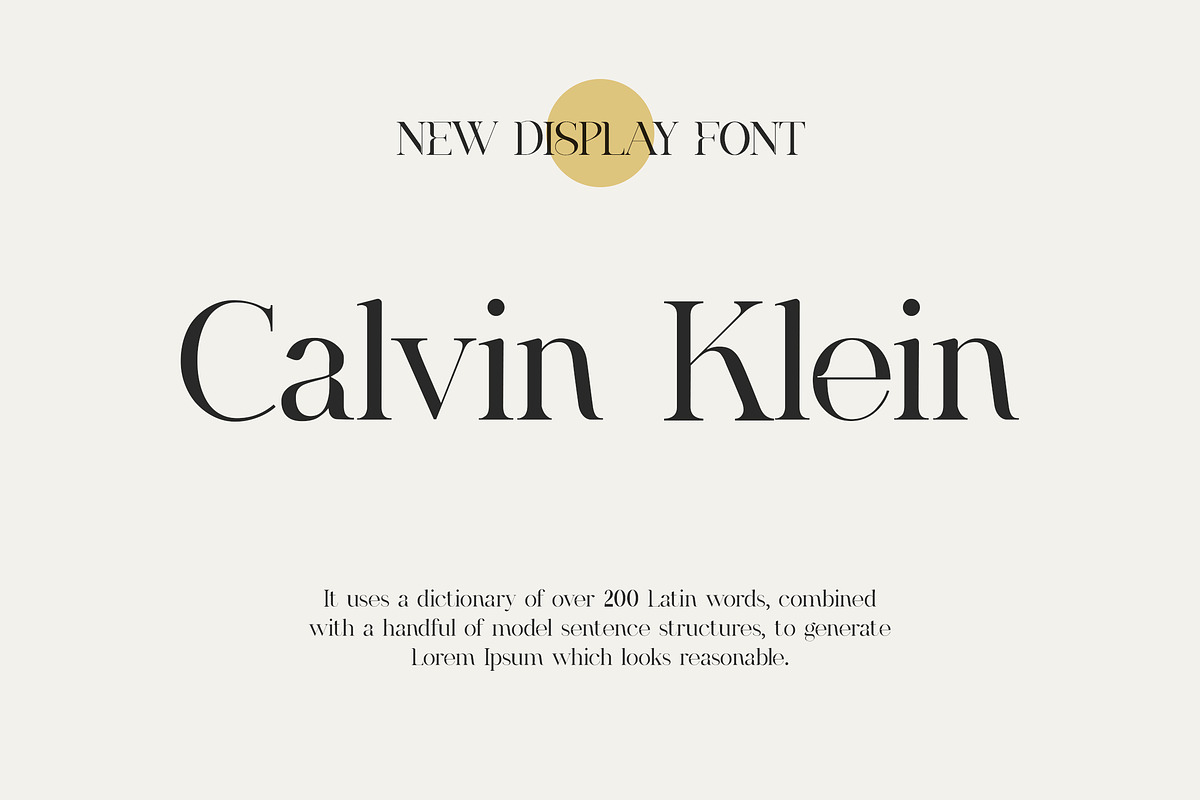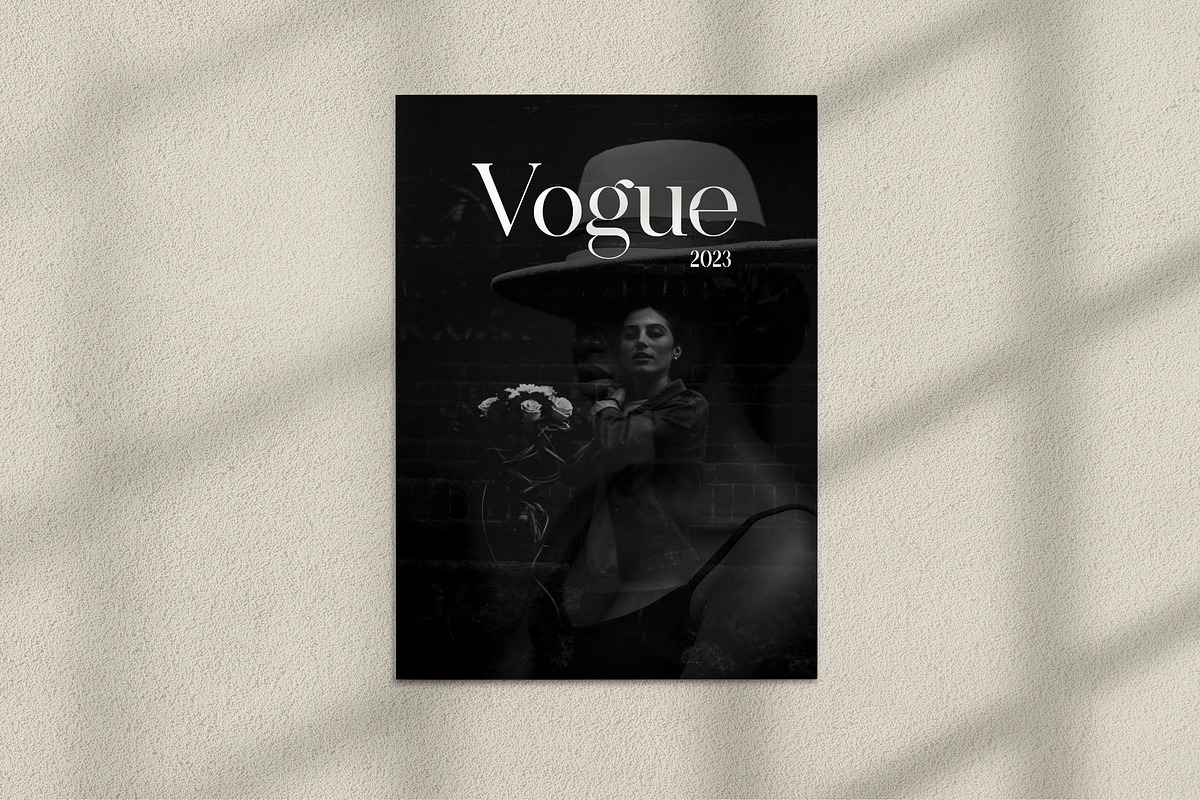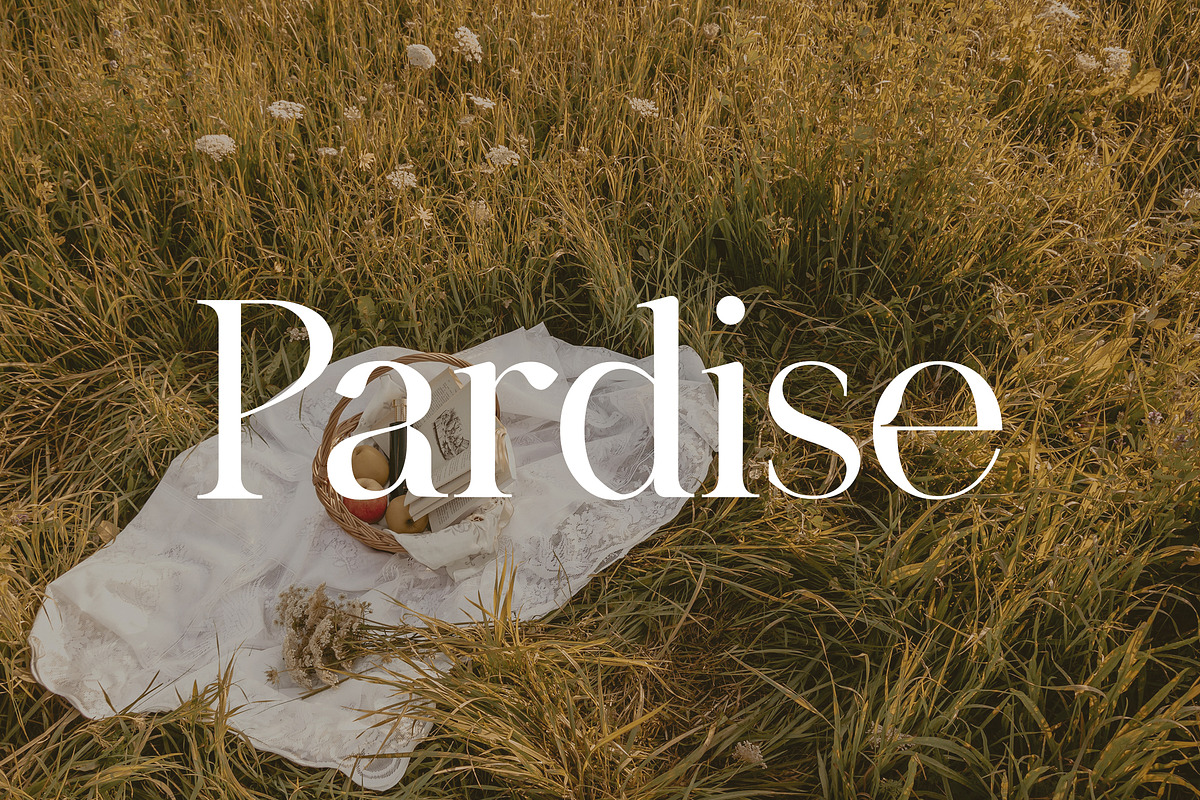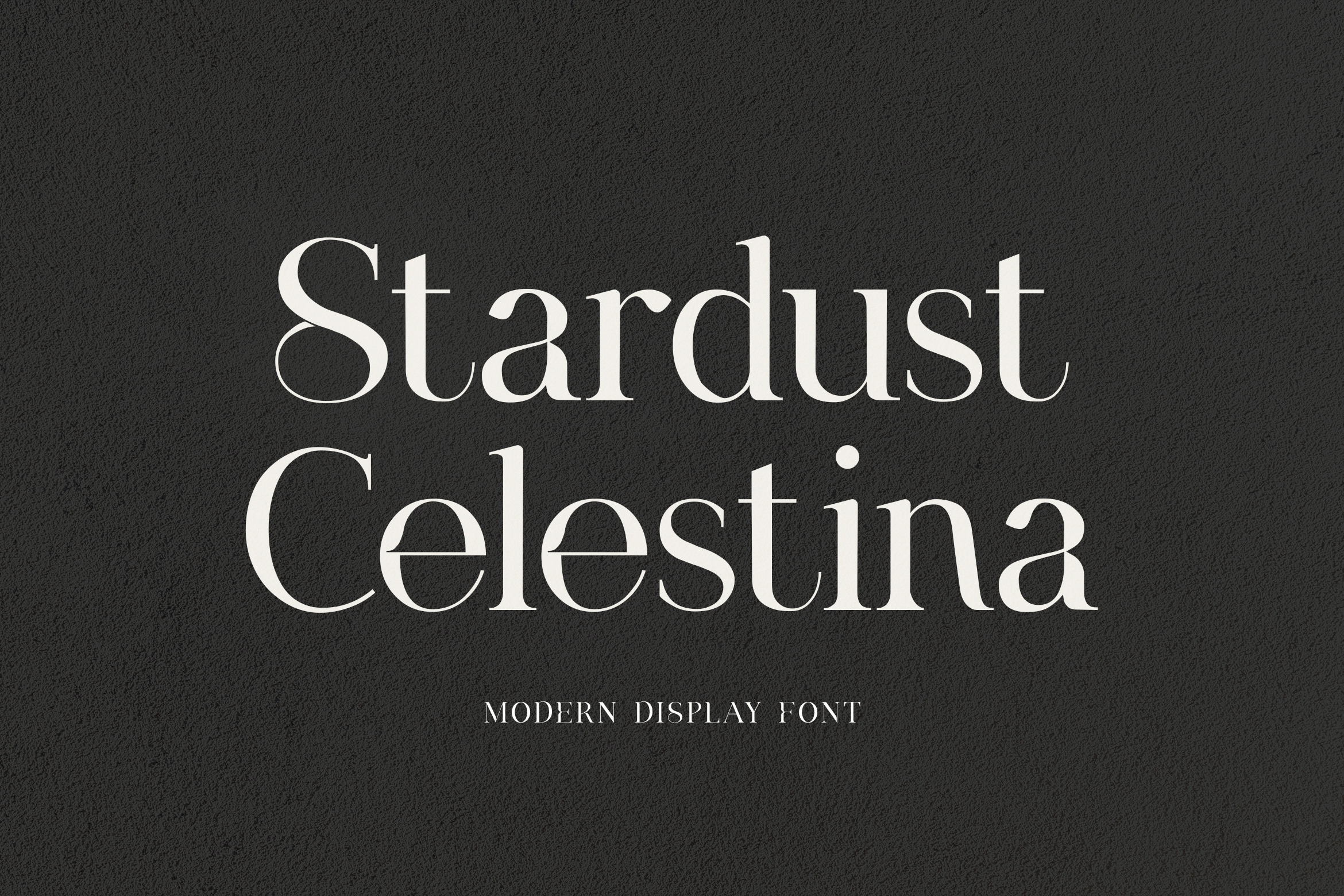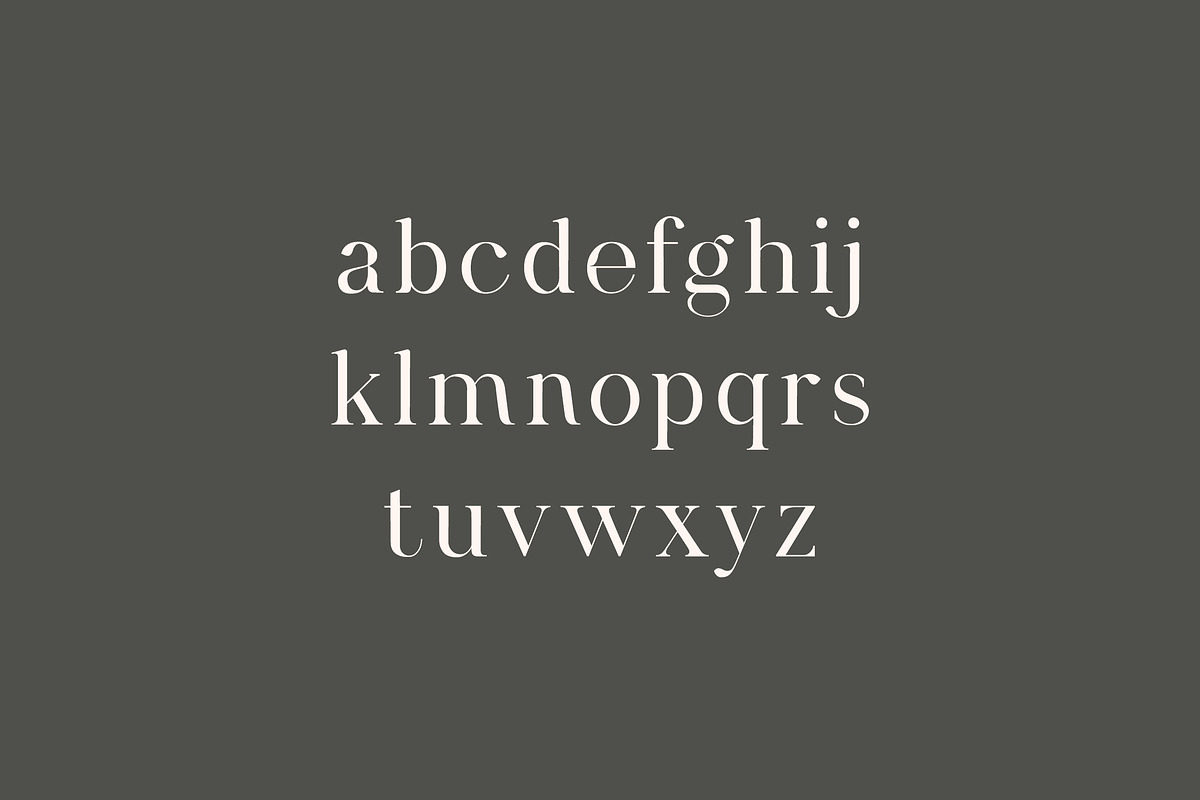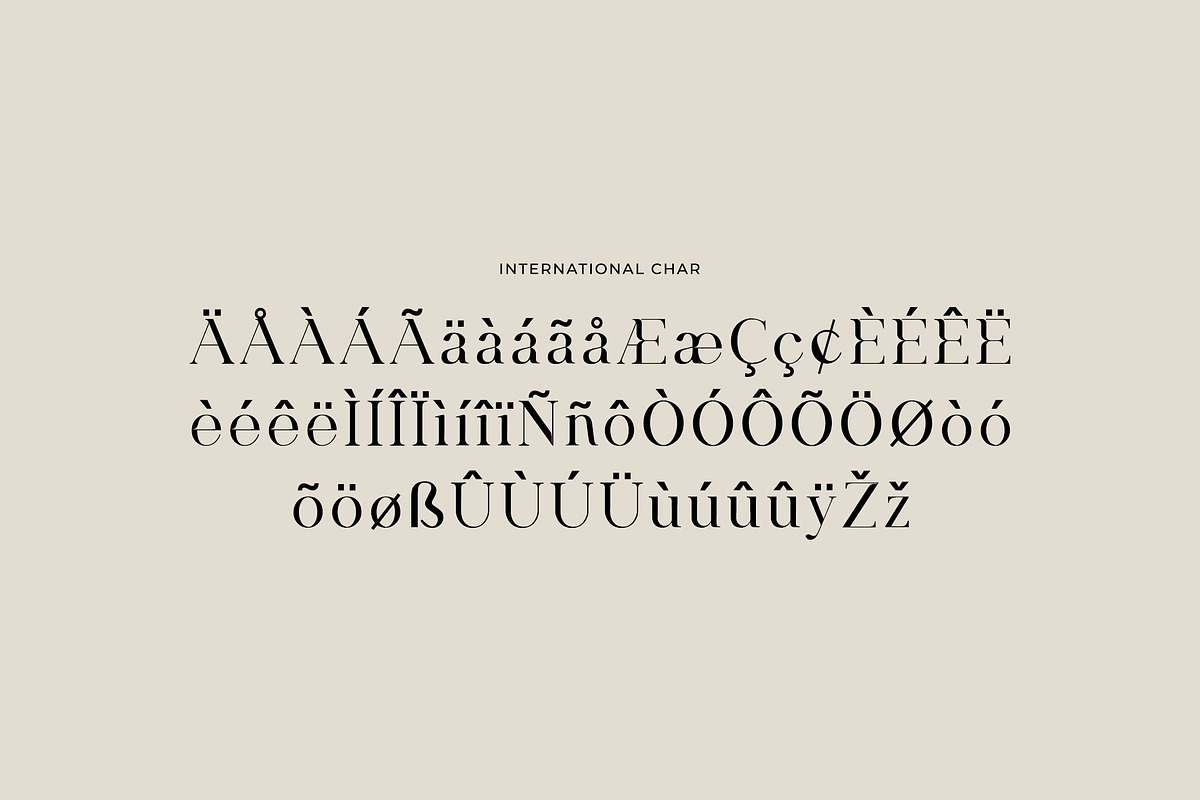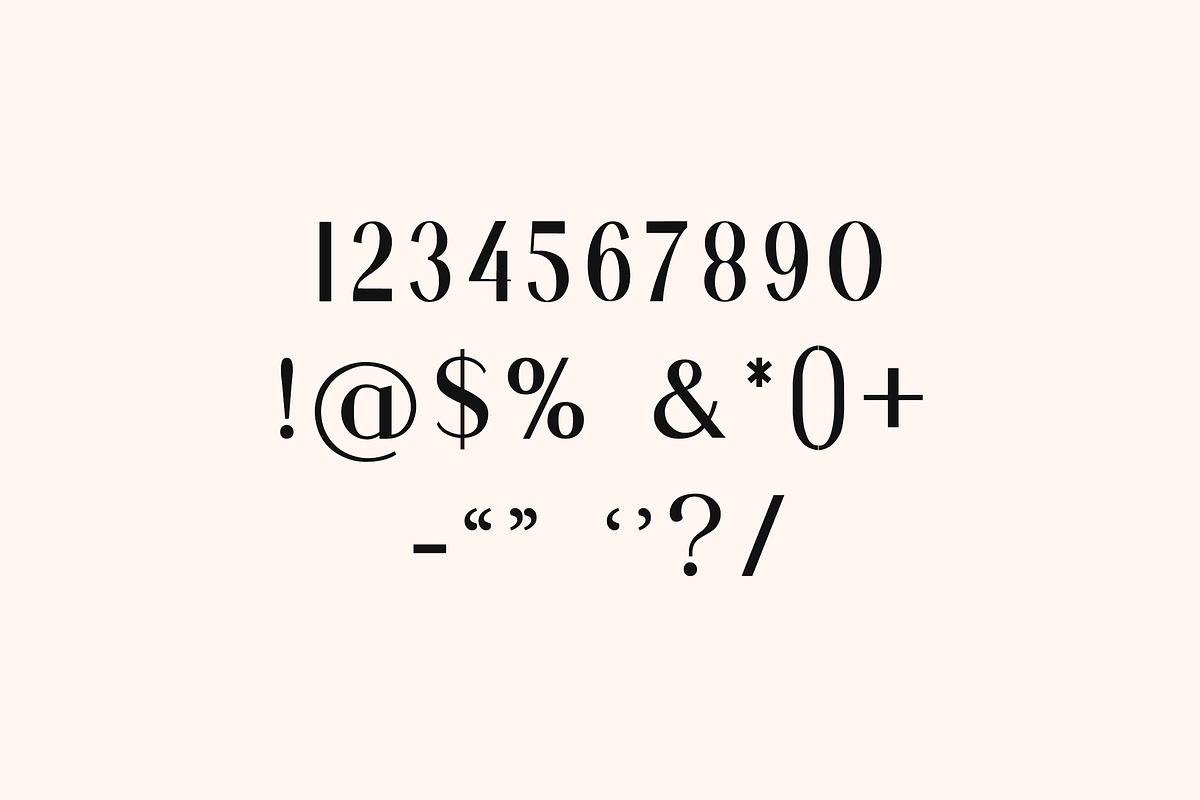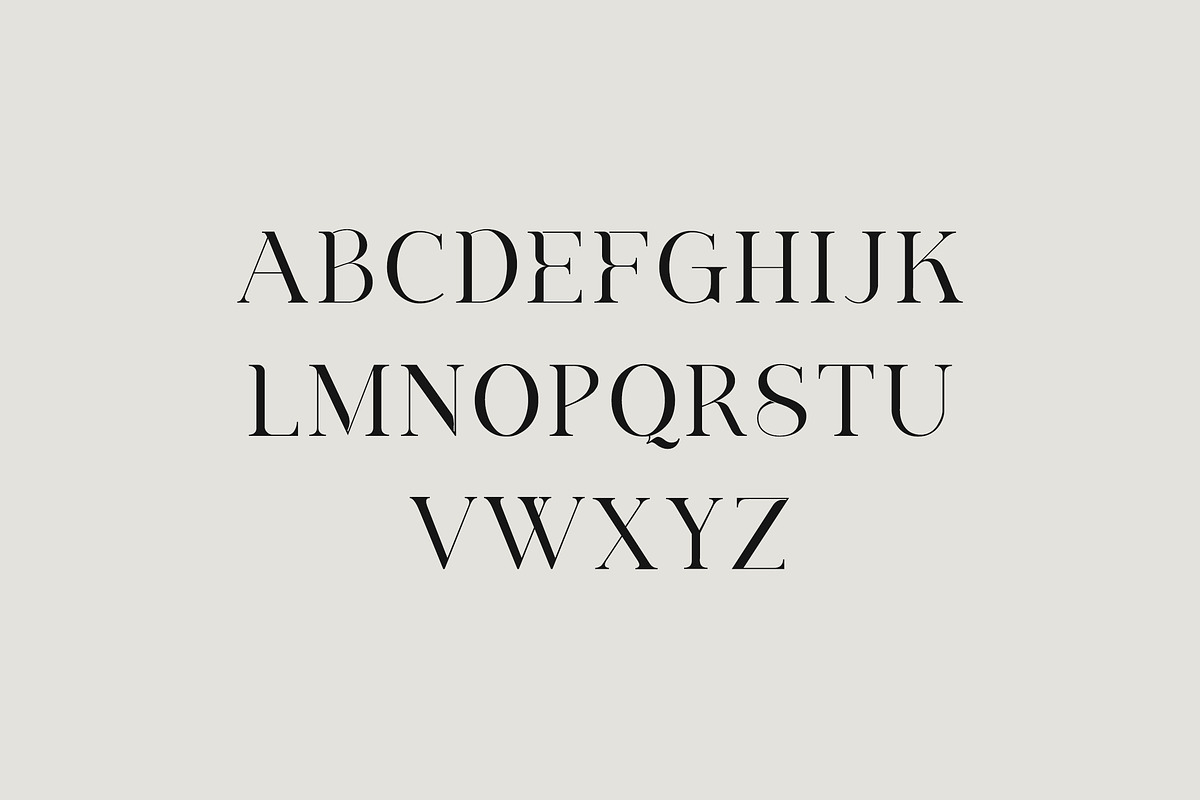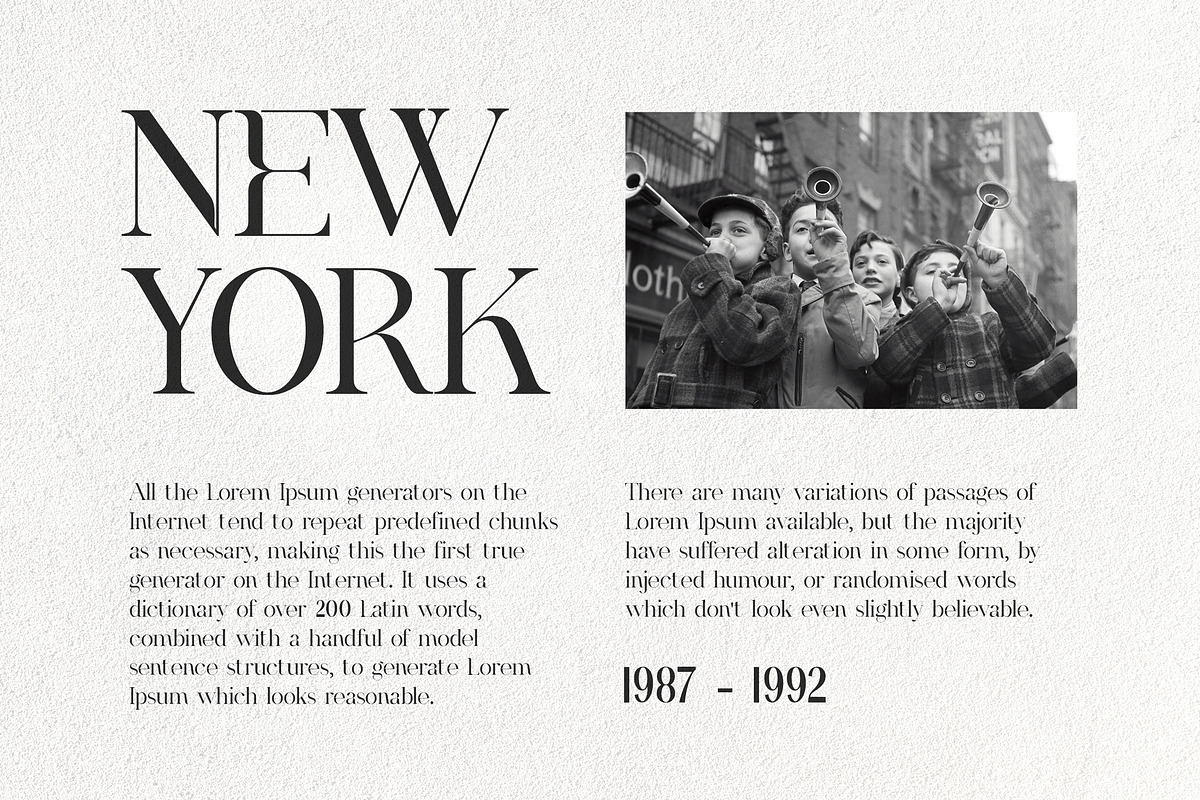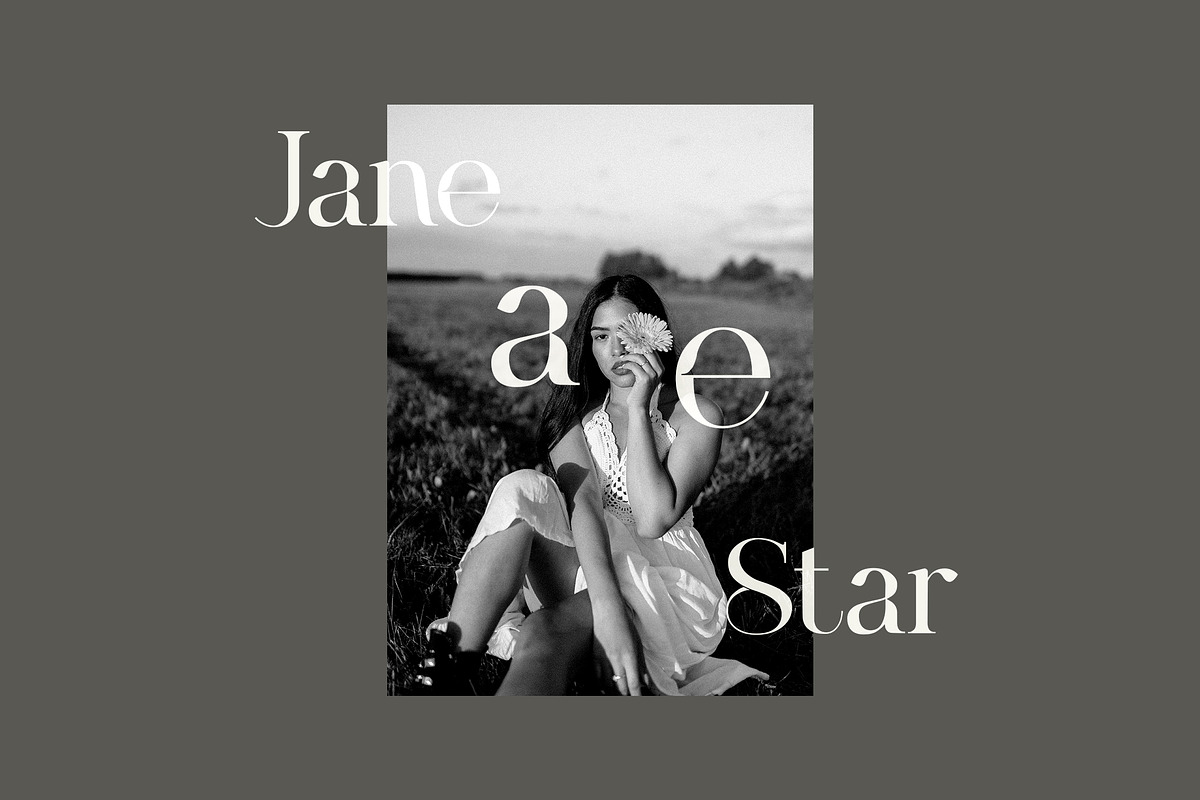
Stardust Celestina Modern Serif Font
Introducing our new product the name is Stardust Celestina Modern Serif Font. Modern Serif font that feels beautiful classy, elegant, and modern. This font is ideally suited for a wide variety of projects, such as signature, stationery, logo, wedding, typography quotes, magazine or book covers, website headers, clothing, branding, packaging design, and more. Also, fashion-related branding or editorial design displays both masculine and feminine qualities.